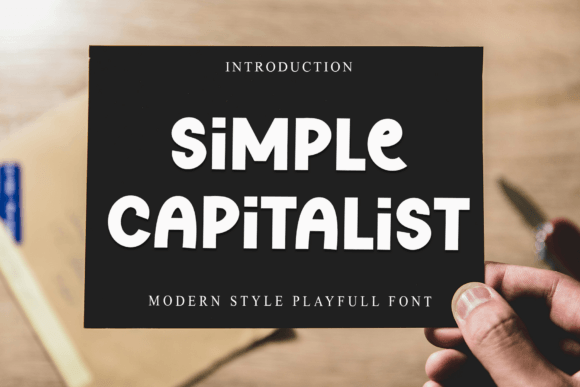
Introducing Simple Capitalist Font: The Ultimate Casual and Creative Typeface
In the world of typography, fonts play a crucial role in conveying the tone and personality of a design. When it comes to creating a warm and friendly atmosphere, the right font can make all the difference. This is where Simple Capitalist Font comes in – a charming, hand-drawn typeface that exudes warmth and approachability. In this article, we’ll dive into the features and benefits of Simple Capitalist Font, and explore how it can elevate your personal projects, invitations, and social media graphics.
The Characteristics of Simple Capitalist Font
Simple Capitalist Font is a casual and creative typeface that boasts round, playful strokes, creating a relaxed and approachable feel. Its unique, hand-drawn aesthetic adds a fun and distinctive touch to any design, making it perfect for projects that require a personal and friendly tone. The font’s charming appearance is sure to capture the attention of your audience and leave a lasting impression.
What Makes Simple Capitalist Font Special?
So, what sets Simple Capitalist Font apart from other typefaces? Here are a few key features that make it a standout:
- Casual and Creative: Simple Capitalist Font is designed to be playful and creative, making it perfect for personal projects, invitations, and social media graphics.
- Warm and Friendly: The font’s round, playful strokes create a warm and friendly atmosphere, perfect for designs that require a personal touch.
- Hand-Drawn Aesthetic: The font’s unique, hand-drawn appearance adds a fun and distinctive touch to any design.
Use Cases for Simple Capitalist Font
Simple Capitalist Font is a versatile typeface that can be used in a variety of design projects. Here are some use cases to get you started:
- Personal Projects: Use Simple Capitalist Font to add a personal touch to your personal projects, such as photo albums, scrapbooks, or DIY crafts.
- Invitations: Create beautiful and unique invitations for special occasions, such as birthdays, weddings, or baby showers.
- Social Media Graphics: Use Simple Capitalist Font to create engaging social media graphics, such as quotes, posters, or infographics.
- Branding and Packaging: Simple Capitalist Font can also be used for branding and packaging design, adding a friendly and approachable touch to your products.
Benefits of Using Simple Capitalist Font
So, why should you choose Simple Capitalist Font for your design projects? Here are some benefits to consider:
- Easy to Read: Simple Capitalist Font is designed to be easy to read, making it perfect for body text and captions.
- Versatile: The font’s casual and creative aesthetic makes it suitable for a wide range of design projects.
- Unique: Simple Capitalist Font’s hand-drawn aesthetic ensures that your designs will stand out from the crowd.
Tips and Tricks for Working with Simple Capitalist Font
Here are some tips and tricks to help you get the most out of Simple Capitalist Font:
- Experiment with Font Sizes: Try different font sizes to create visual hierarchy and emphasis in your designs.
- Play with Colors: Experiment with different colors to add personality and style to your designs.
- Mix and Match: Combine Simple Capitalist Font with other fonts to create unique and interesting typography.
- Pay Attention to Kerning: Adjust the kerning and tracking to ensure that the font looks balanced and visually appealing.
Simple Capitalist Font is a charming, hand-drawn typeface that exudes warmth and friendliness. Its casual and creative aesthetic makes it perfect for personal projects, invitations, and social media graphics. With its PUA Encoded glyphs, the font is compatible with various application engines, ensuring seamless integration into your design workflow. Whether you’re a designer, artist, or DIY enthusiast, Simple Capitalist Font is a great addition to your font library.
- What is Simple Capitalist Font?
- Simple Capitalist Font is a casual and creative typeface that exudes warmth and friendliness.